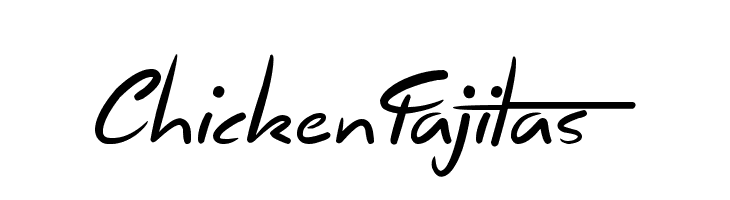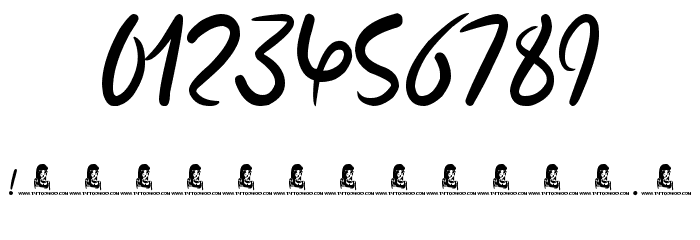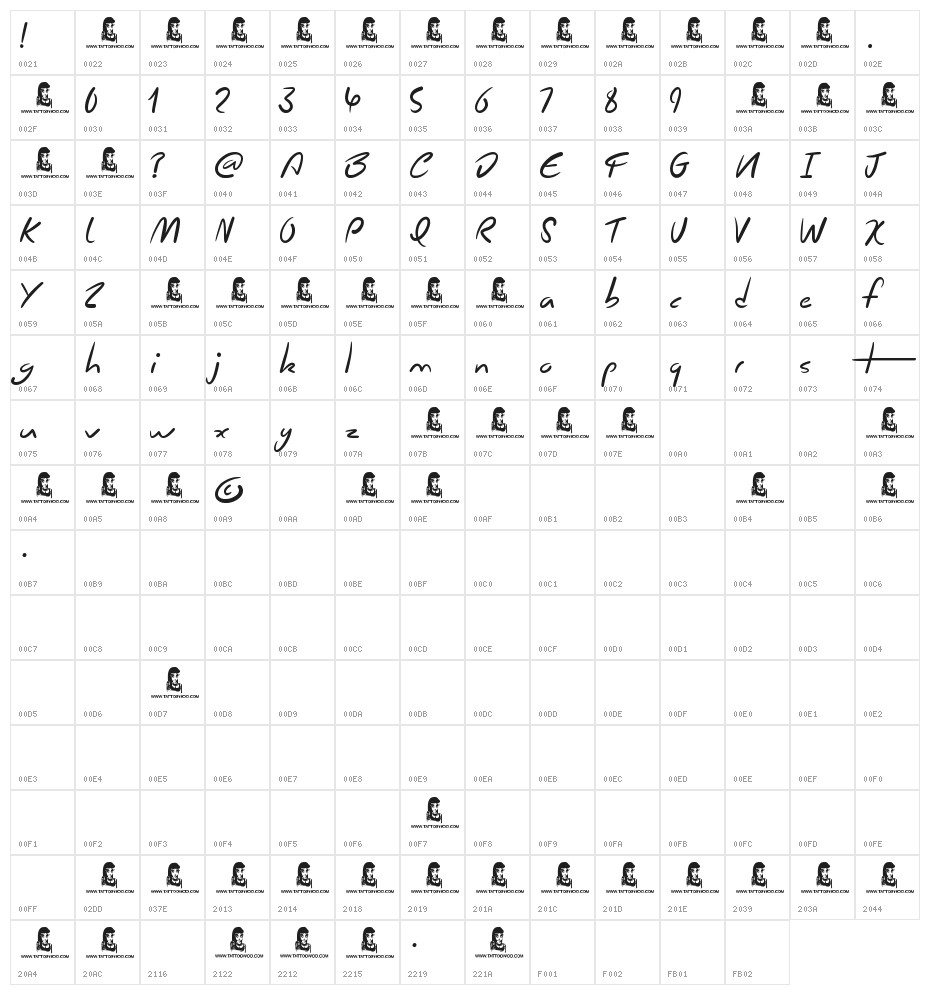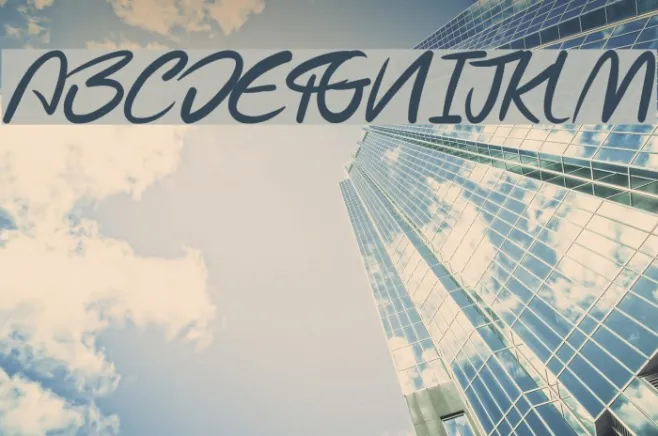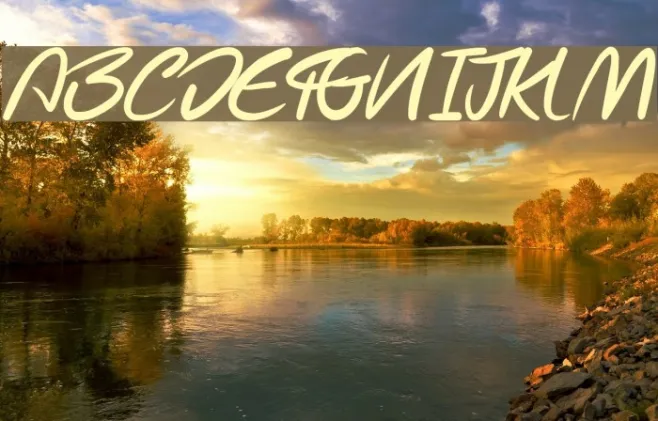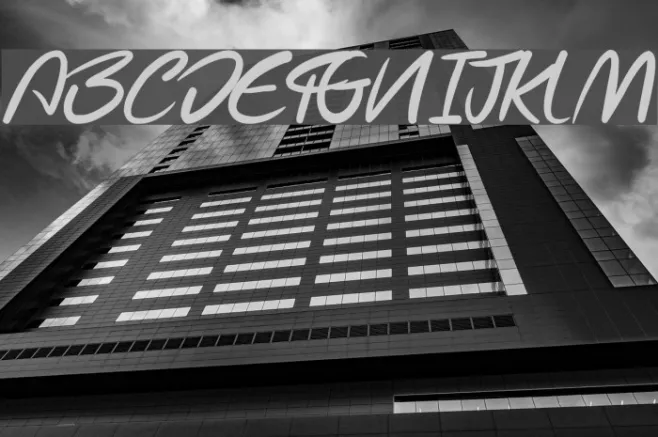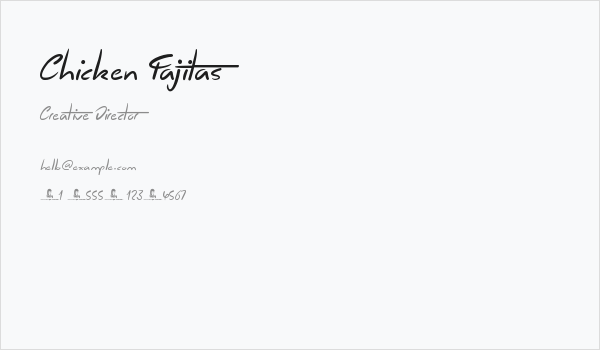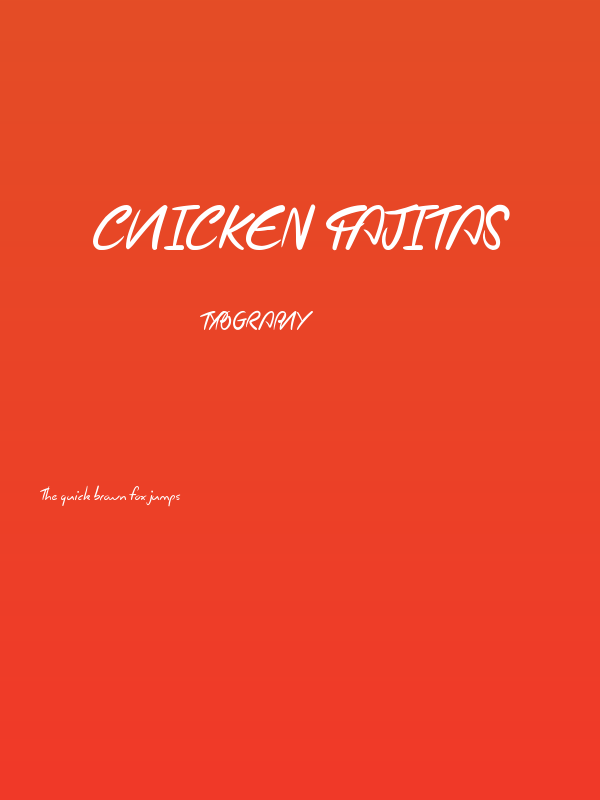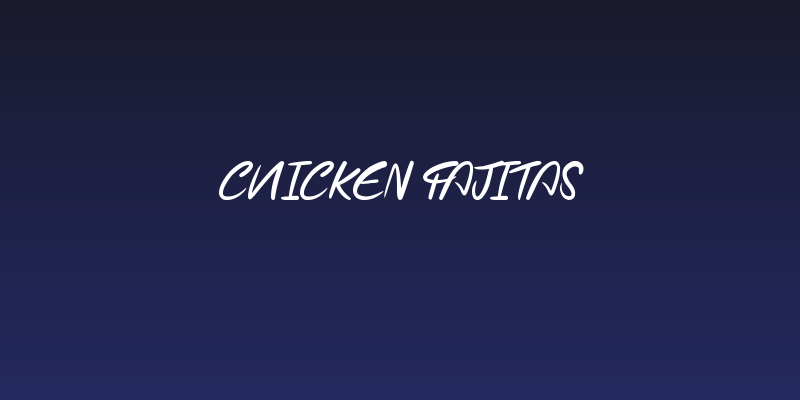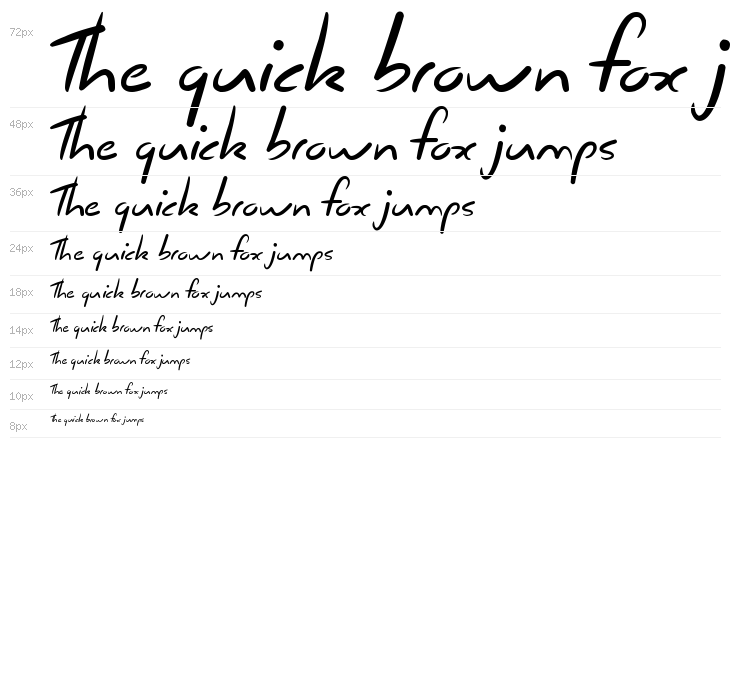
Chicken Fajitas Font
Chicken Fajitas Description
This font features a dynamic and energetic script style, characterized by its fluid and expressive strokes. The letters are connected in a way that mimics natural handwriting, giving it a personal and informal touch. The uppercase letters are bold and slightly slanted, while the lowercase letters maintain a consistent flow, enhancing readability. The numbers are distinct and maintain the same lively style. This font is well-suited for creative projects that require a personal and artistic flair.